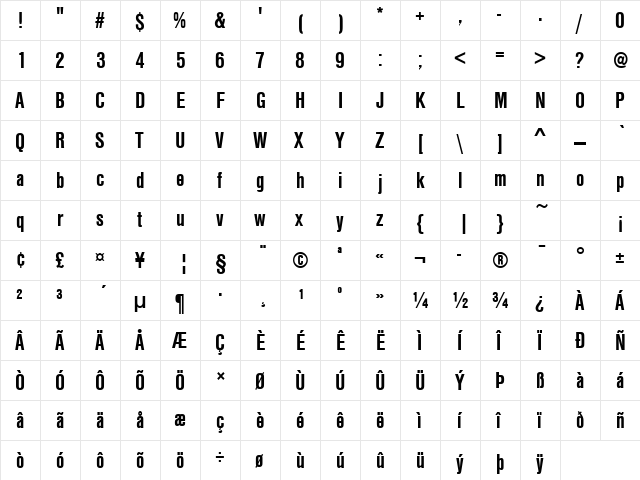
NimbusSanTConBold Regular
Design Context for NimbusSanTConBold Typeface
NimbusSanTConBold is a composed and adaptable typeface that performs quietly and consistently across a wide range of design contexts. The heavy weight commands attention and anchors typographic hierarchies.